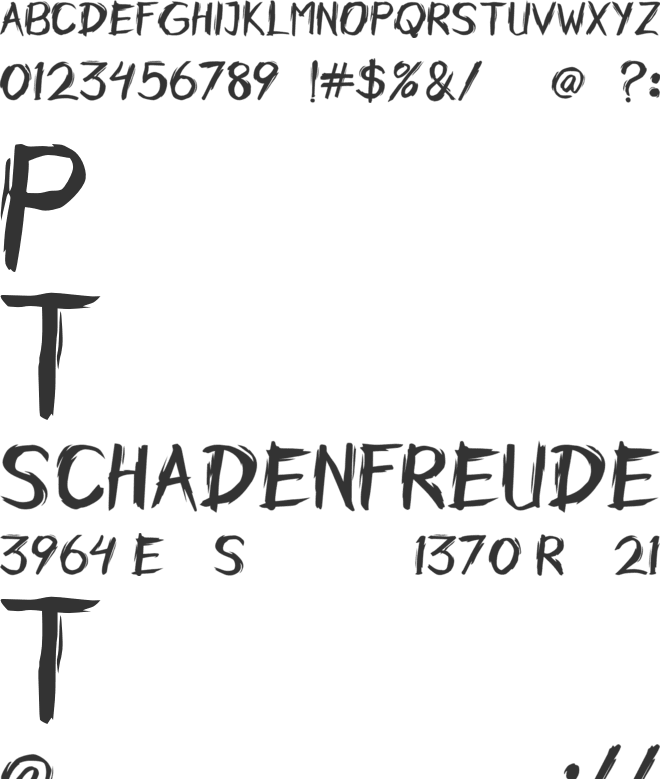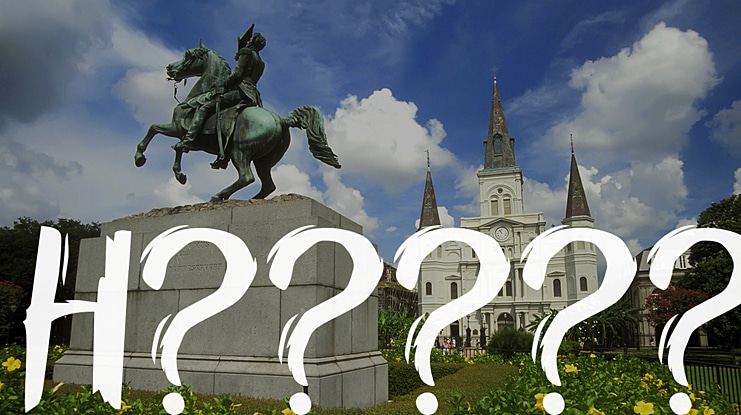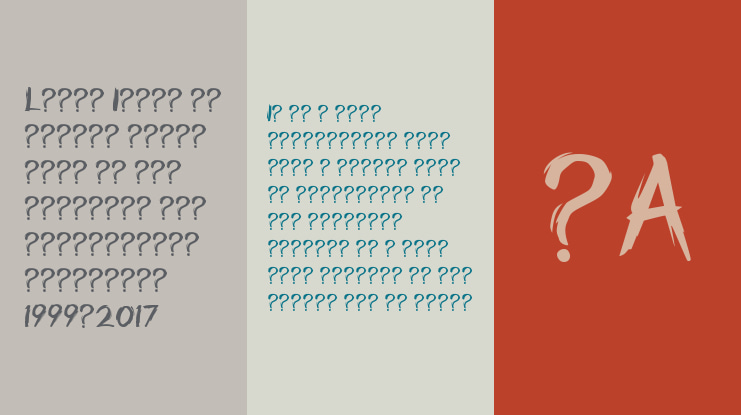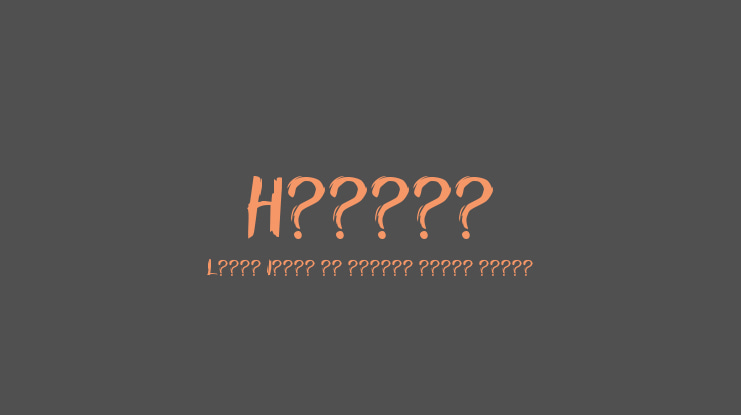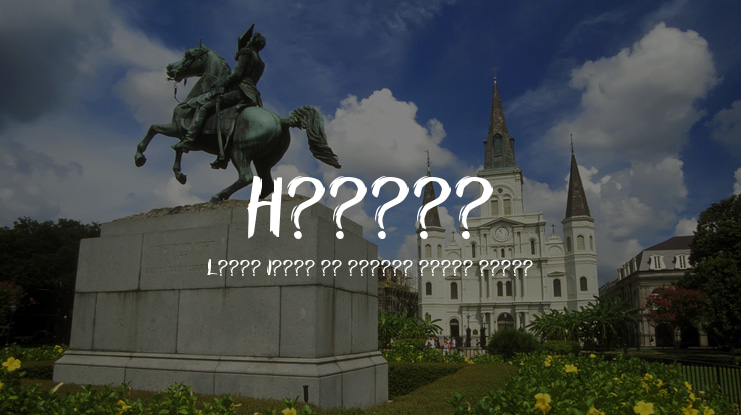
Horobi Font
Horobi font, unlike the font with the usual brush style, sometimes has a very low level of readability. Horobi even with a brush style, but very easy to read, clear and decisive. So it is suitable for application to various media
For horror content, horobi is well suited, its strong form impresses a tense fear.
For content about Japanese or oriental, horobi is perfect. The brush style can blend with the traditional Japanese style
Basically Horobi font, very cool, easy to read